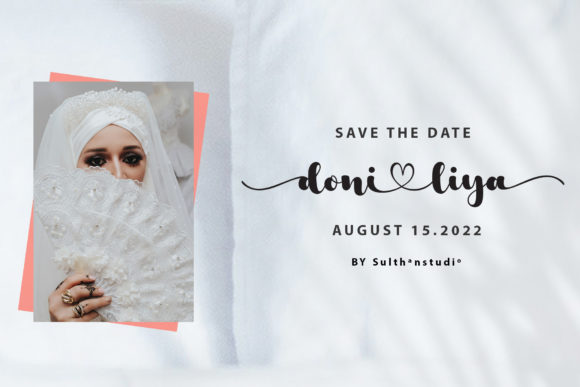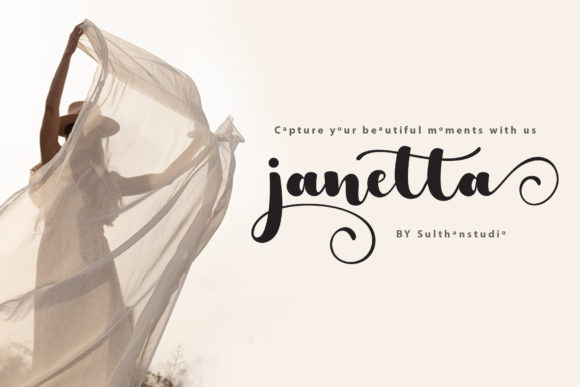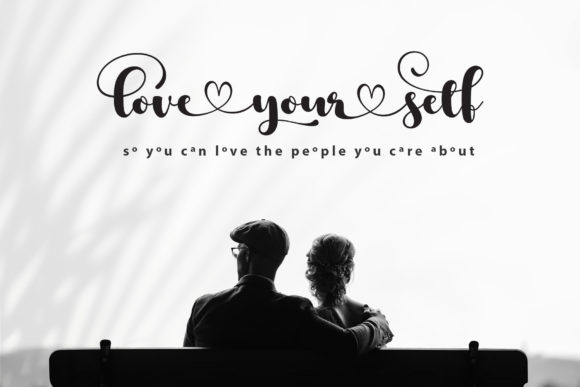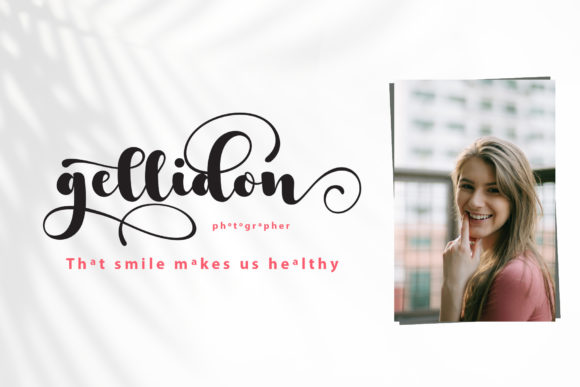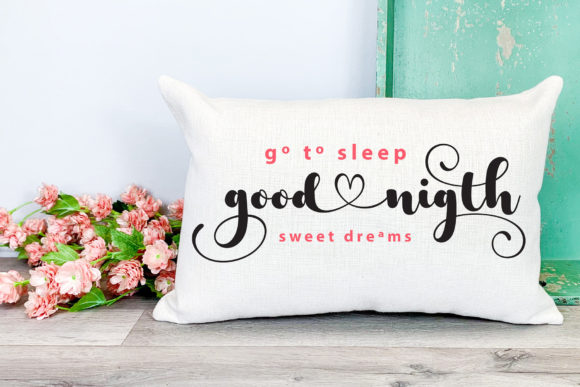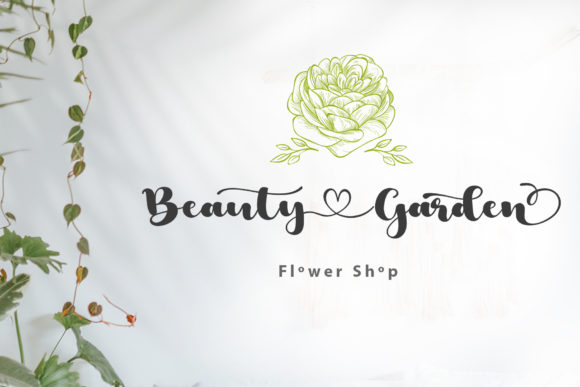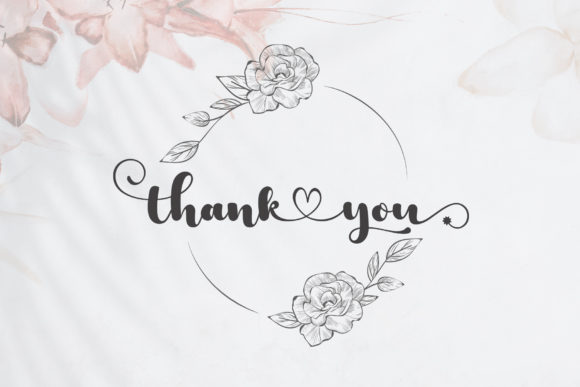
Anjeli Font
About Anjeli Font
Anjeli is a romantic and sweet calligraphy typeface with characters that dance along the baseline. It will add a luxury spark to any design project that you wish to create! This font is PUA encoded which means you can access all of the amazing glyphs and ligatures with ease!